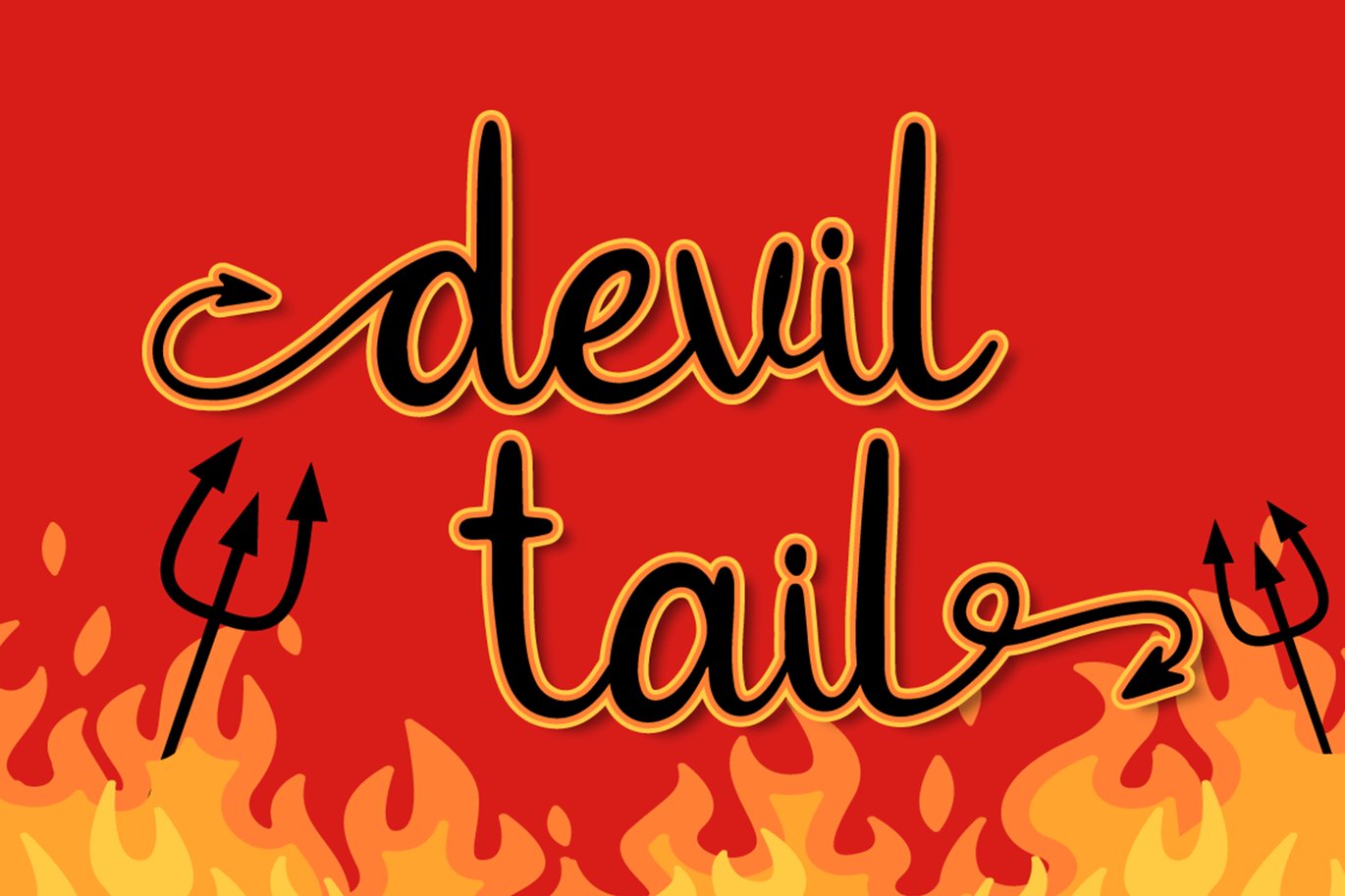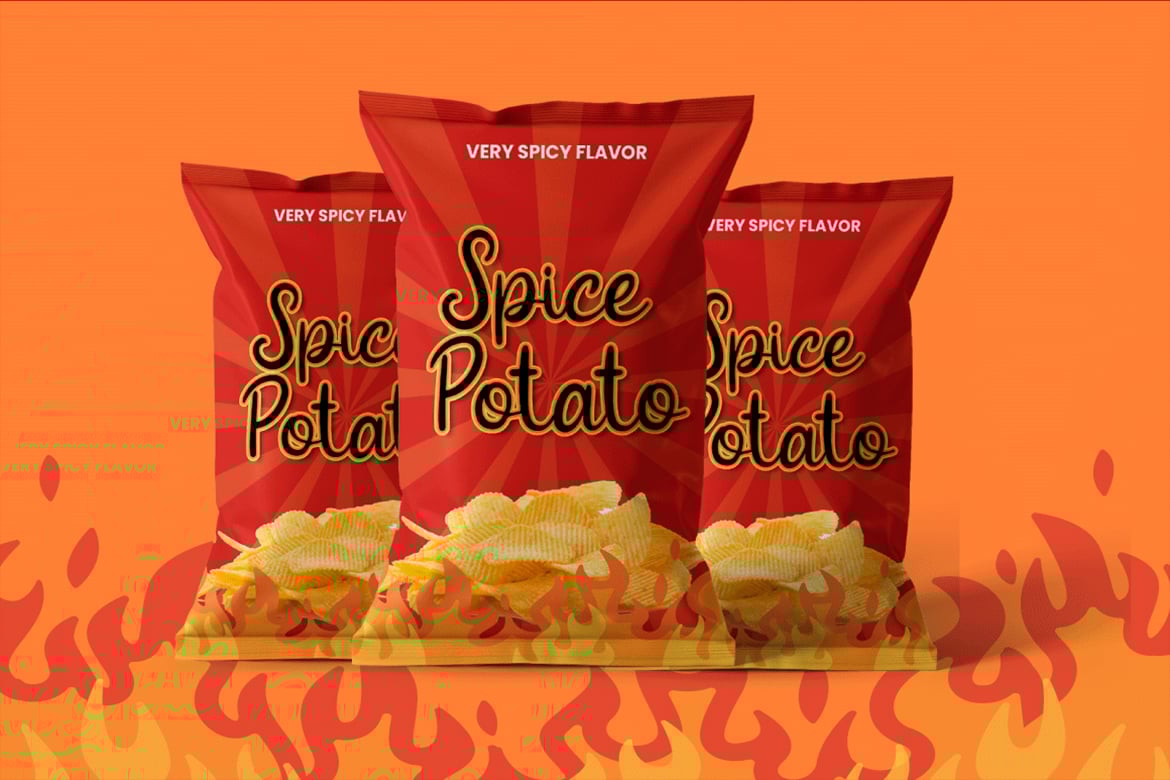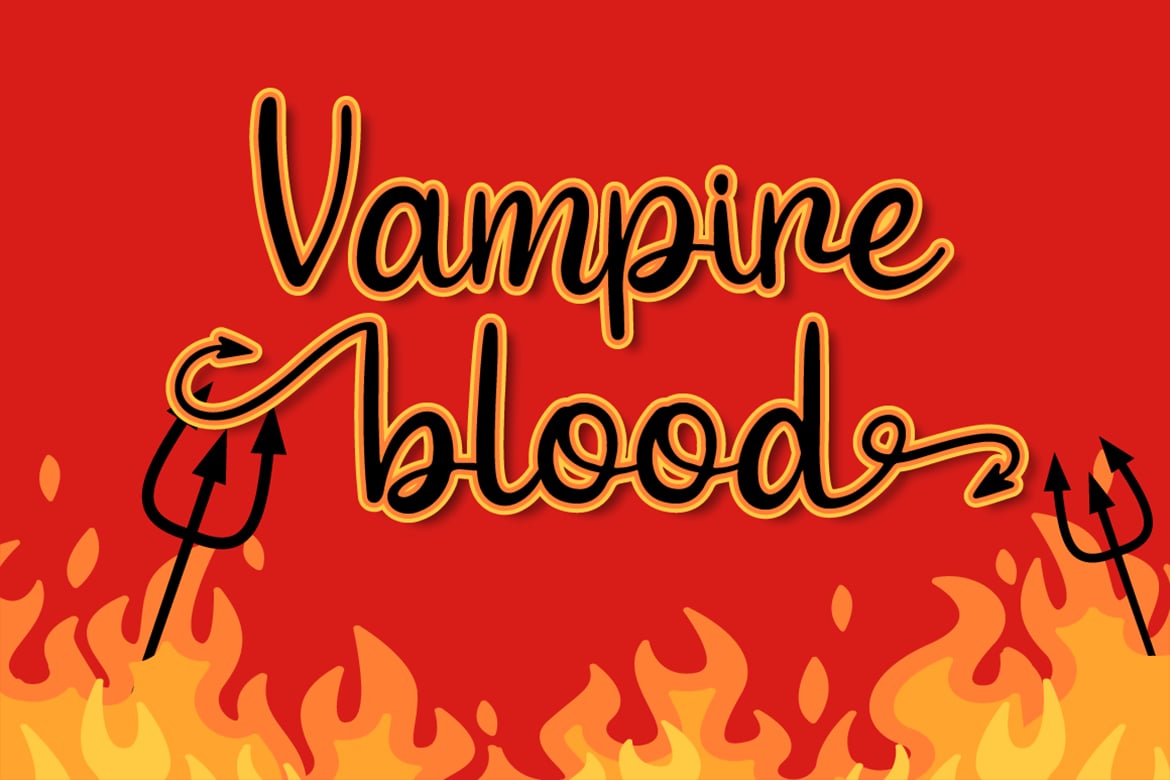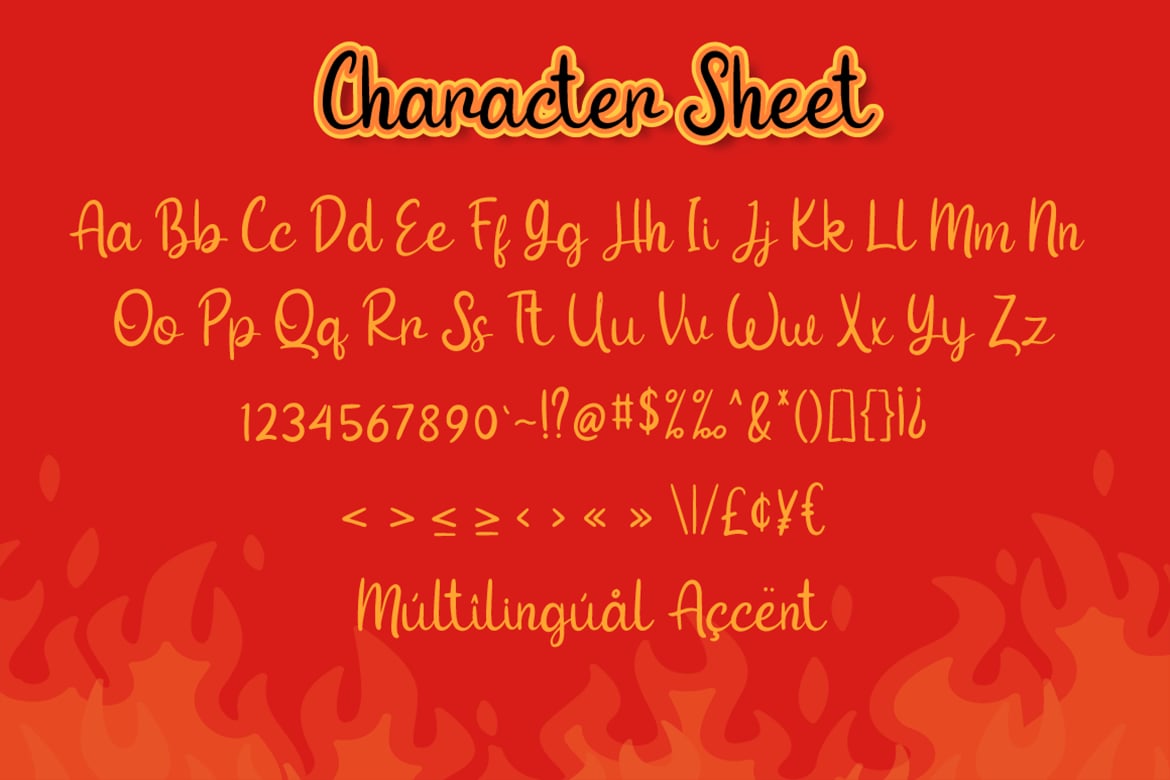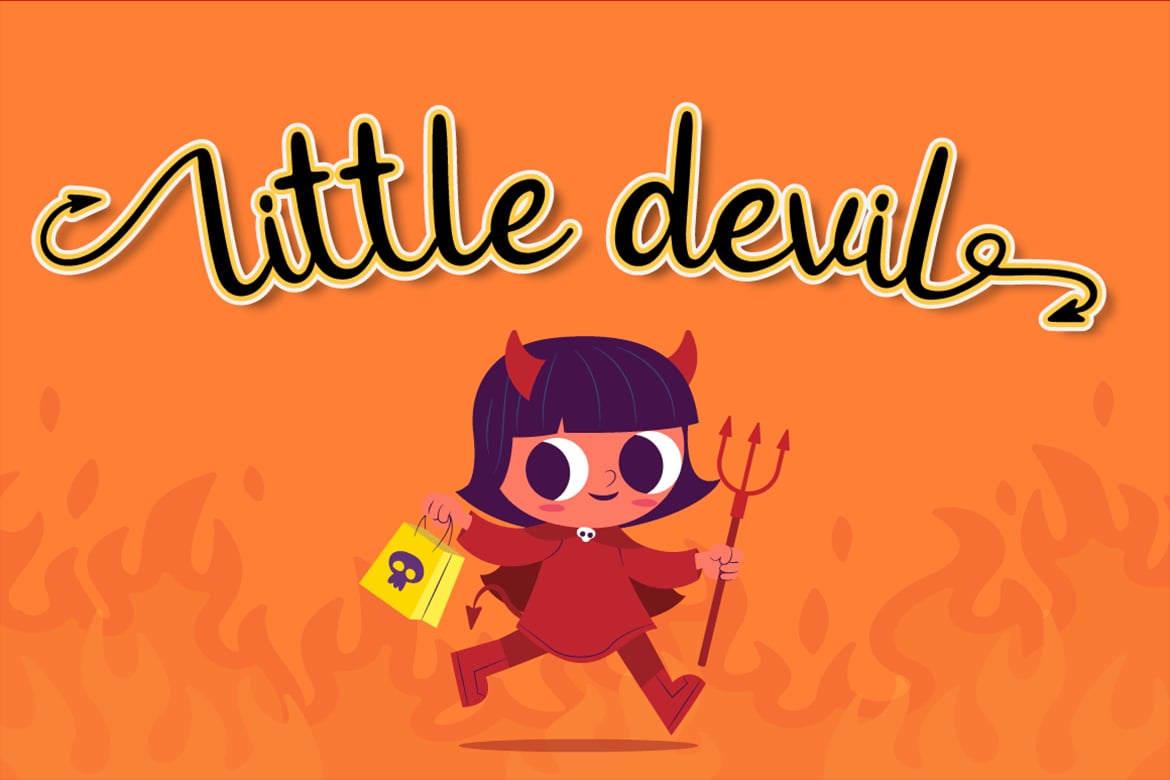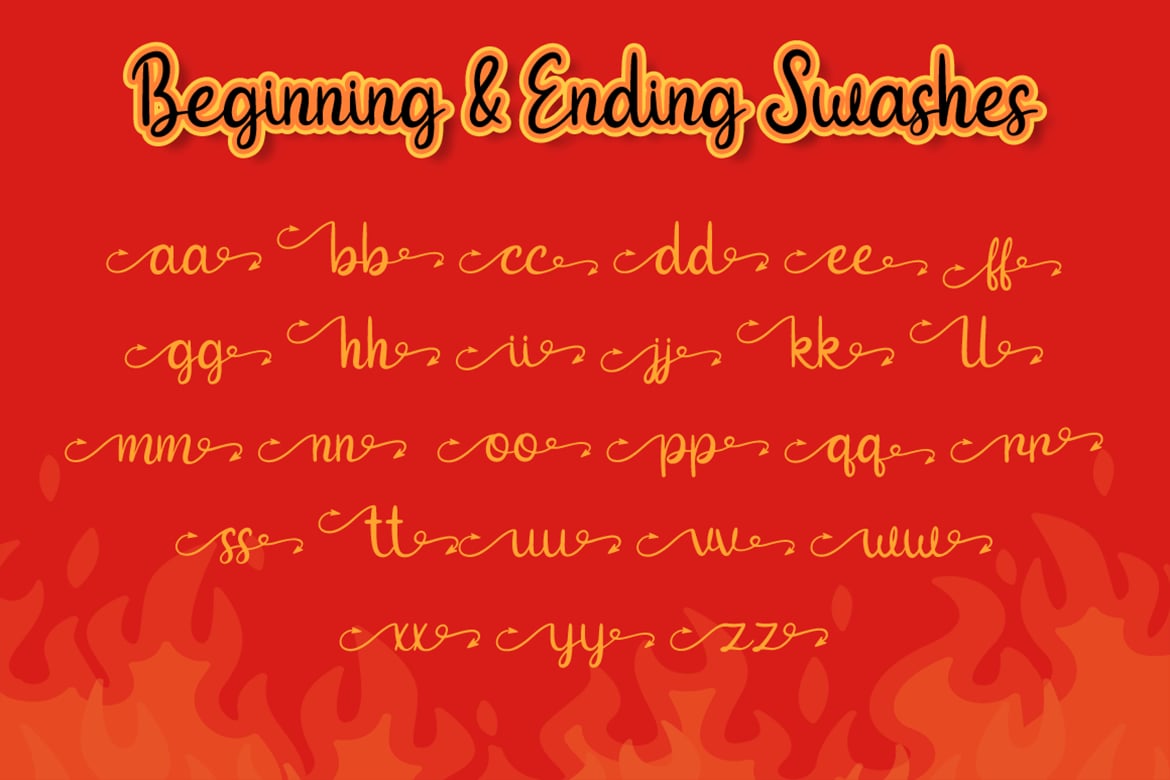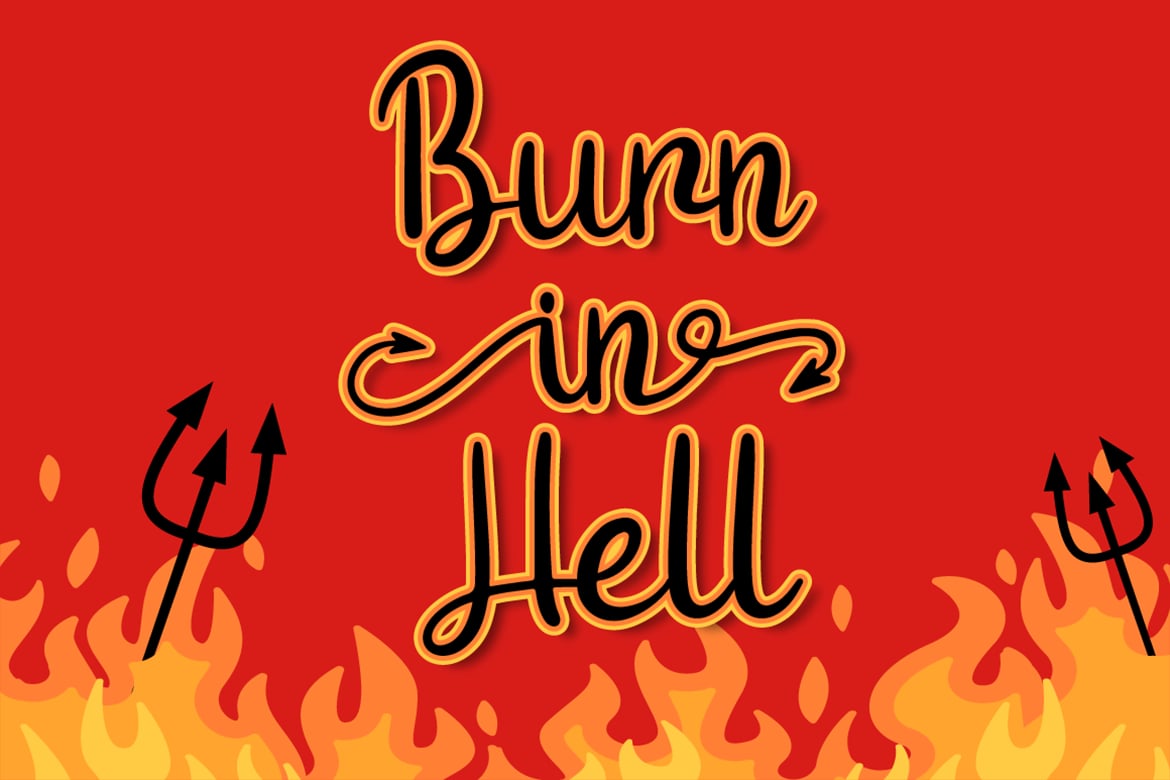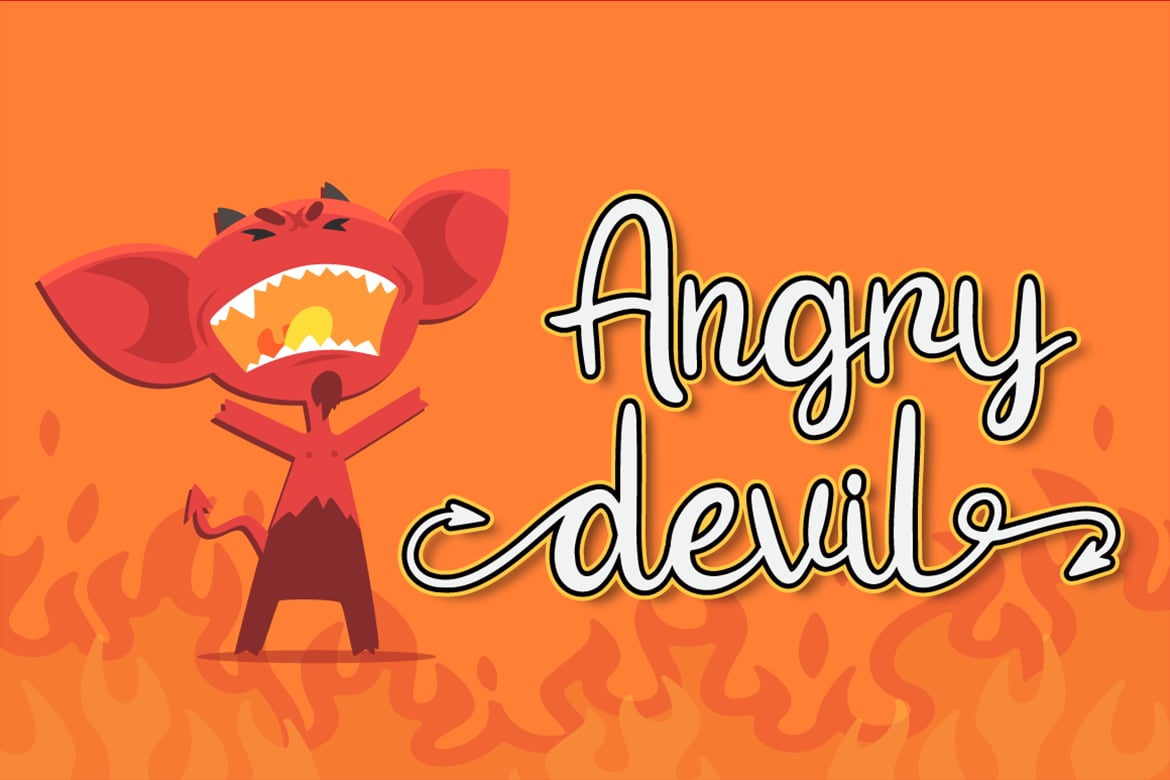
Devil Tail – Halloween Font
Devil Tail is a delicate and incredibly distinct handwritten font. Fall in love with its incredibly versatile style and use it to create spectacular designs!
- Beginning & Ending Swash
- Multilingual Support (Afrikaans, Albanian, Catalan, Danish, Dutch, English, Estonian, Finnish, French, German, Icelandic, Italian, Norwegian, Portugese, Spanisch, Swedish, Zulu)